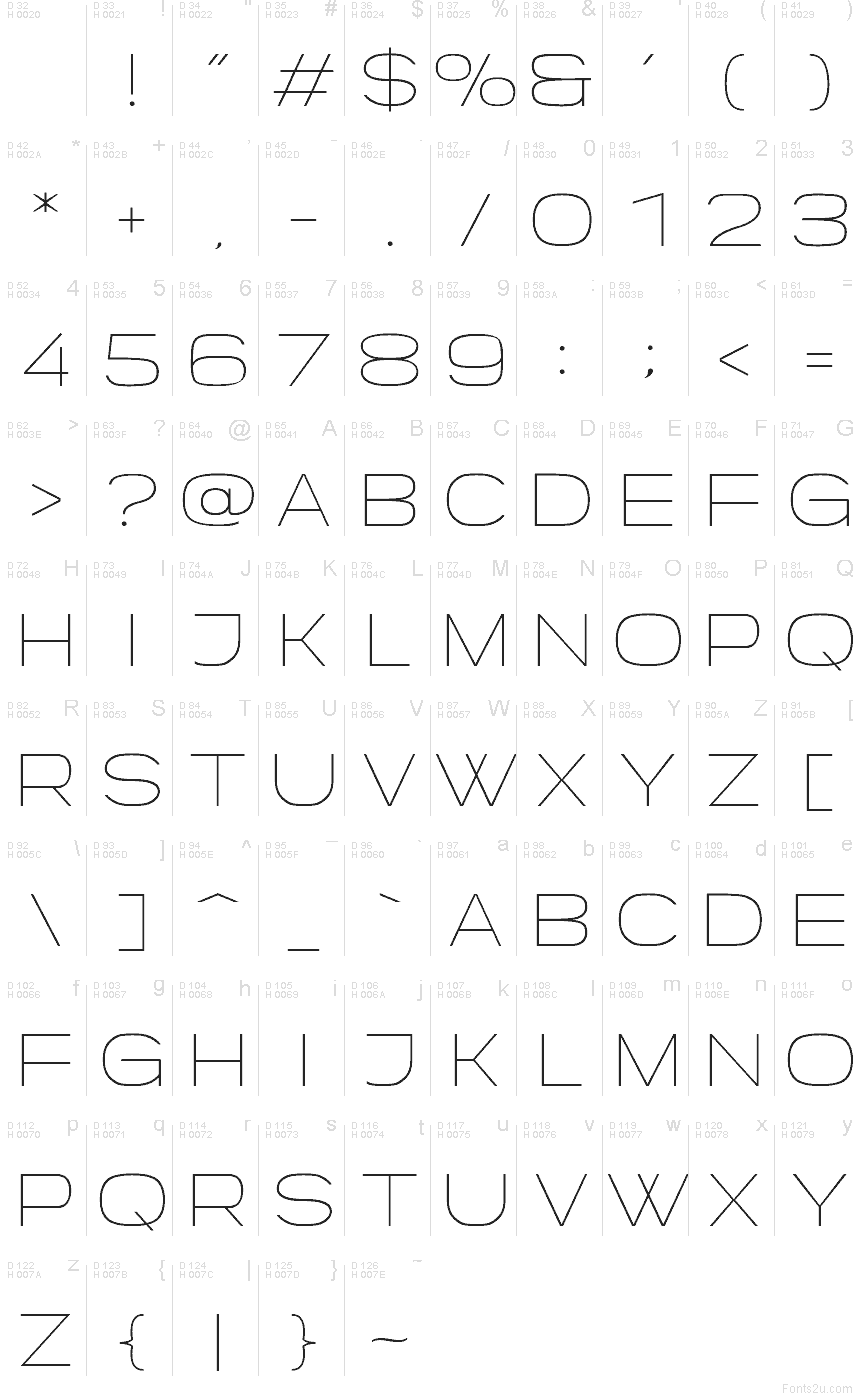
Borndia Light font by Muhamad Fikry Nuralif of Fikryal Studio is a free sans serif font, part of the Borndia family, that feels like lettering drawn with a single, precise wire. Its strokes stay whisper-thin and evenly weighted, with wide, open shapes that read clean and airy. The look is crisp, minimal, and quietly futuristic-more architectural linework than ink.
Using Borndia Light, you’ll get a sleek voice for tech branding, UI headings, landing pages, editorial pull quotes, packaging labels, posters, and signage where breathing room matters. This free font shines at larger sizes with generous tracking; pair it with a warm text serif or a sturdy neo-grotesk for body copy to keep layouts grounded.